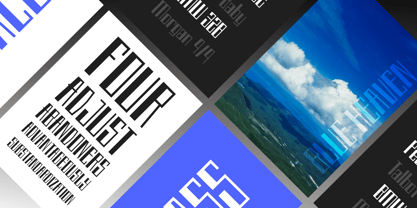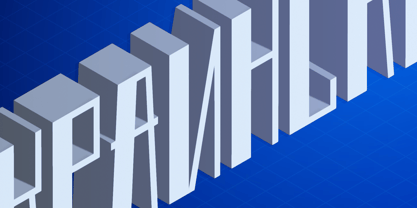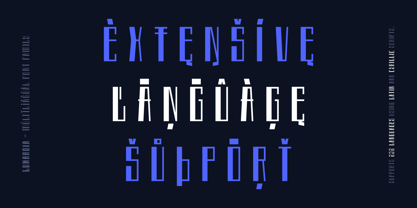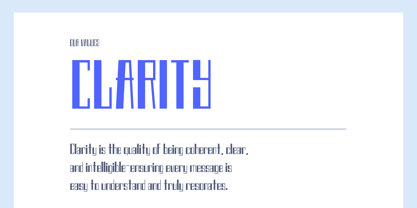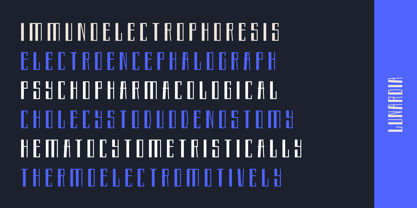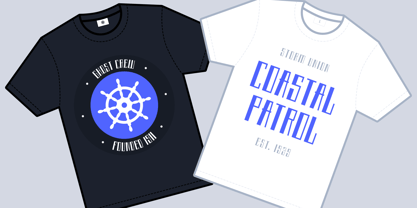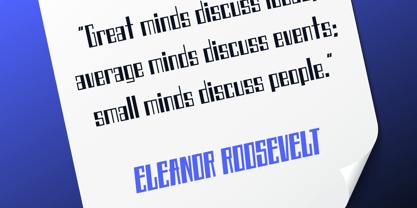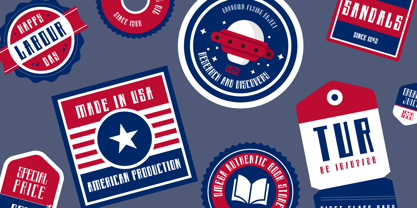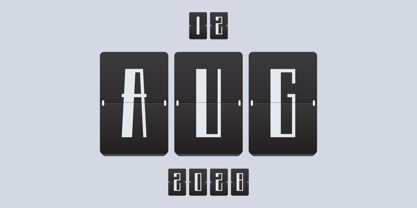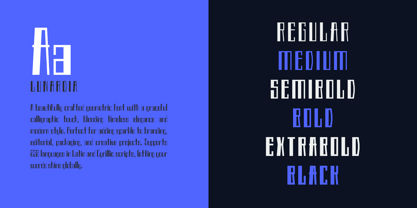
Lunardia
🌟 Lunardia – A Bold and Expressive Extended Display Font
Lunardia is a uniquely crafted display typeface designed to make your words stand out. With bold lines, sharp personality, and playful geometry, it’s perfect for everything from game interfaces to modern brand identities, social media graphics, and web design.
Whether you're building a neon sci-fi game UI or a punchy lifestyle brand, Lunardia brings expressive energy to any creative project.
Why Choose Lunardia?
• Eye-Catching Design: A powerful, attention-grabbing display font that balances fun with readability.
• Extended Latin & Cyrillic: Designed to be global — not just decorative.
• Hand-Tuned for Digital Use: Optimized for advertising, UI, apps, and web projects.
• Perfect for Creative Projects: Ideal for logos, posters, YouTube thumbnails, Twitch overlays, and more.
• Professional Quality: Crafted with attention to spacing, balance, and style.
• Included Styles:
Regular • Italic • Medium • Medium Italic • SemiBold • SemiBold Italic • Bold • Bold Italic • ExtraBold • ExtraBold Italic • Black • Black Italic
• Slanted Styles: Carefully generated with precise transformations
🌍 Multilingual Support
Lunardia supports 128 languages, including both Extended Latin and Extended Cyrillic character sets.